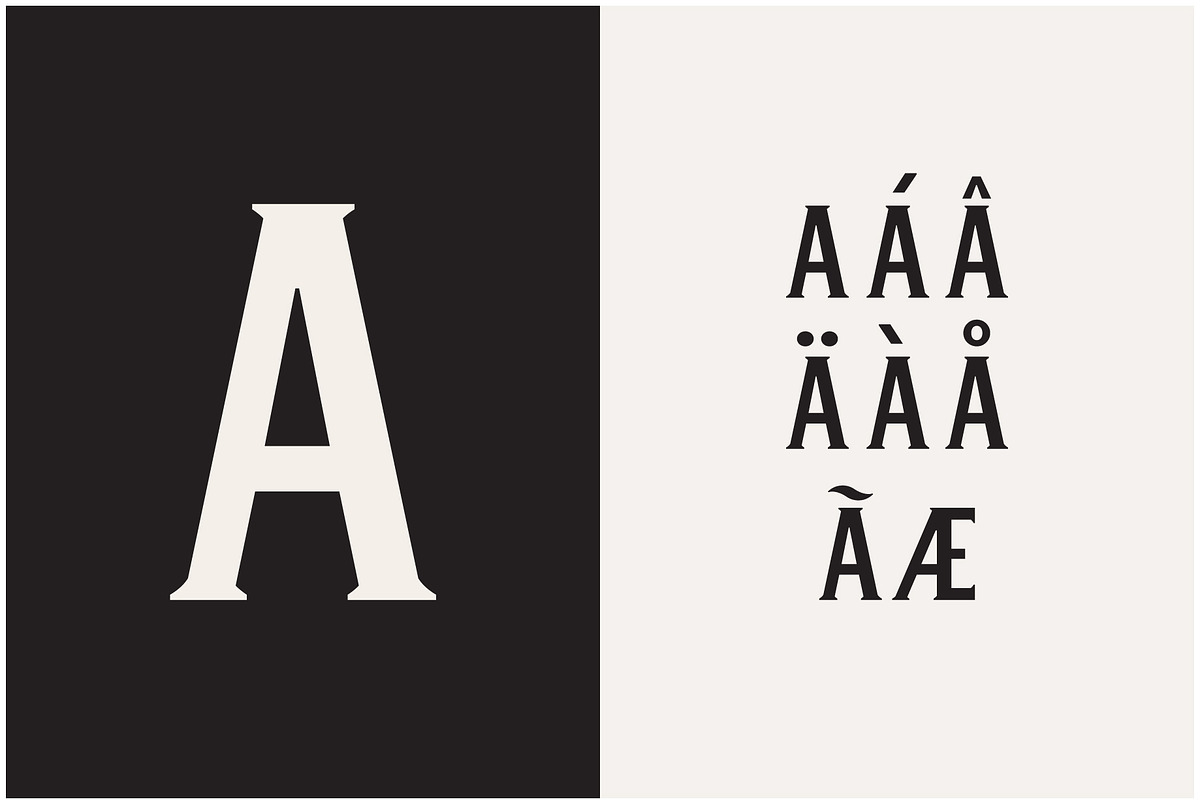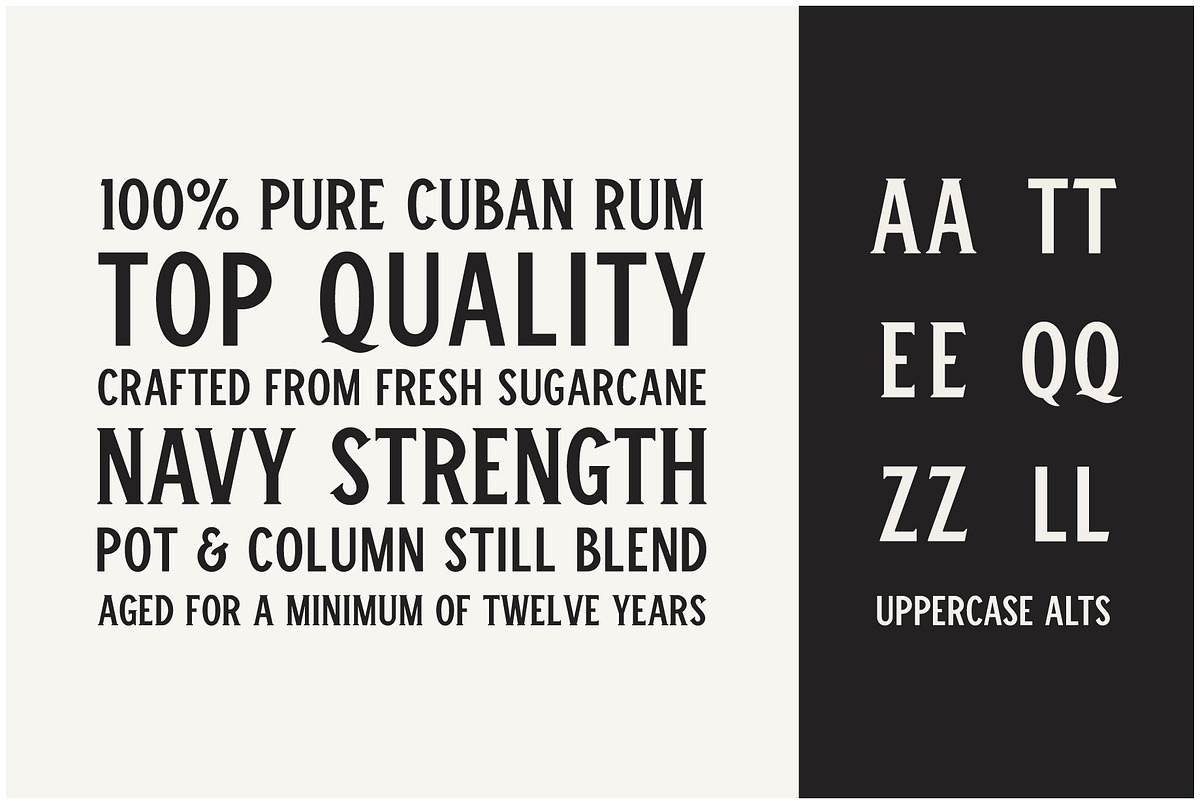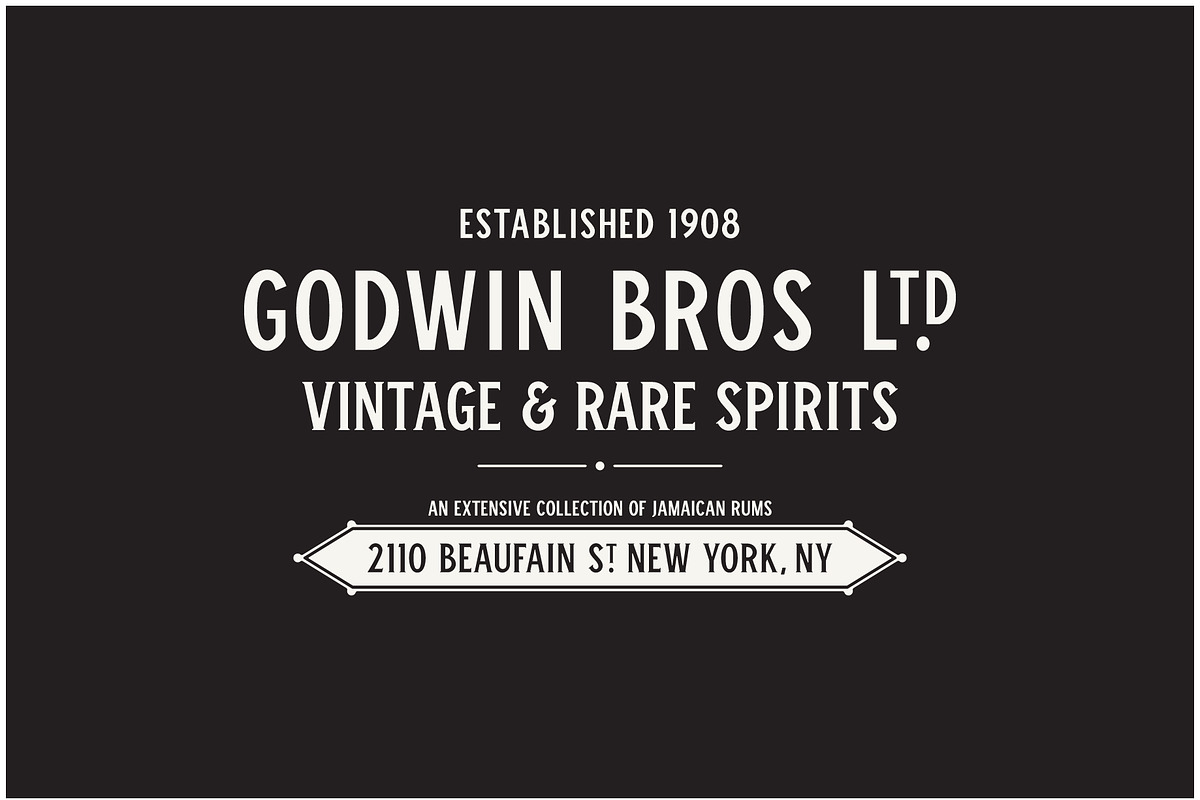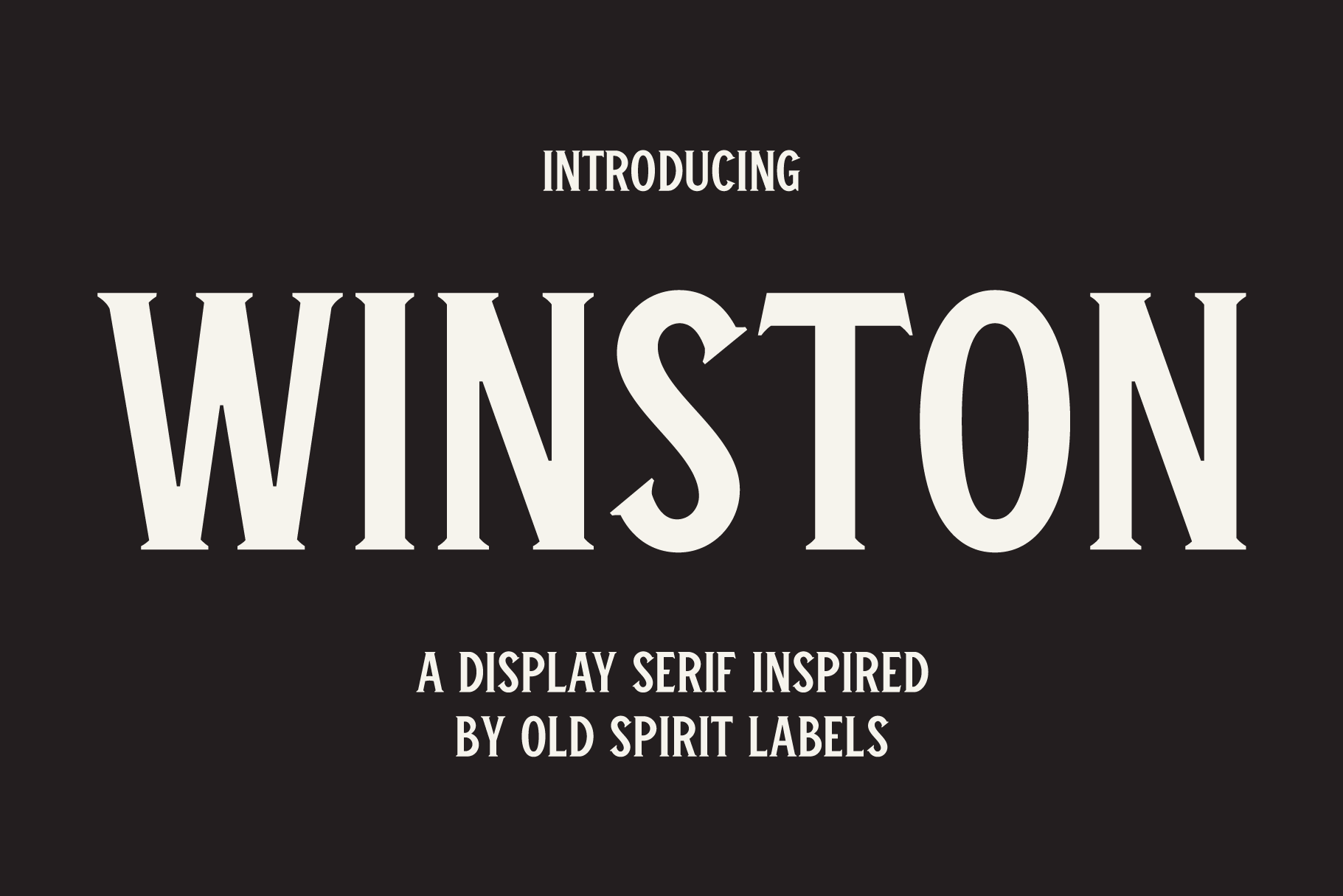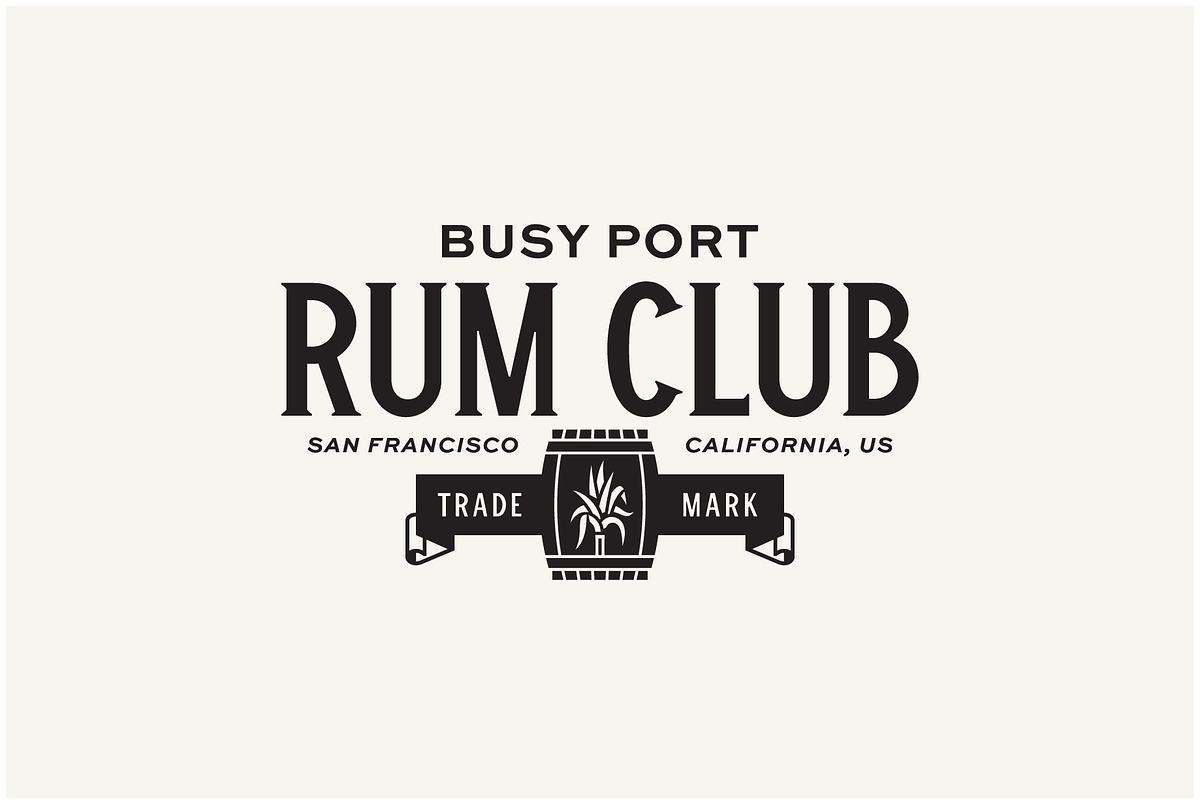
Winston Typeface
Inspired by old spirits labels, the Winston family is a perfect mix of vintage and modern. Winston is great for brand identity, package design, poster design, and more!
- Serif typeface
- All Caps typeface
- Capital letter alts
- US and Western European language support